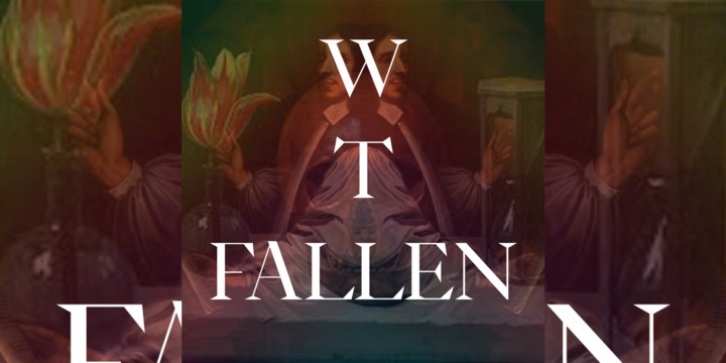
Publisher: Wraith Types
Inspired by the classical “Fell Types”, especially the charmingly quirky weights designed by Peter De Walpergen. WT Fallen is a liberal interpretation of those cuts, meant for the digital age. It’s elegance and sharpness make it a perfect fit for any project that requires impact and subtlety at the same time.